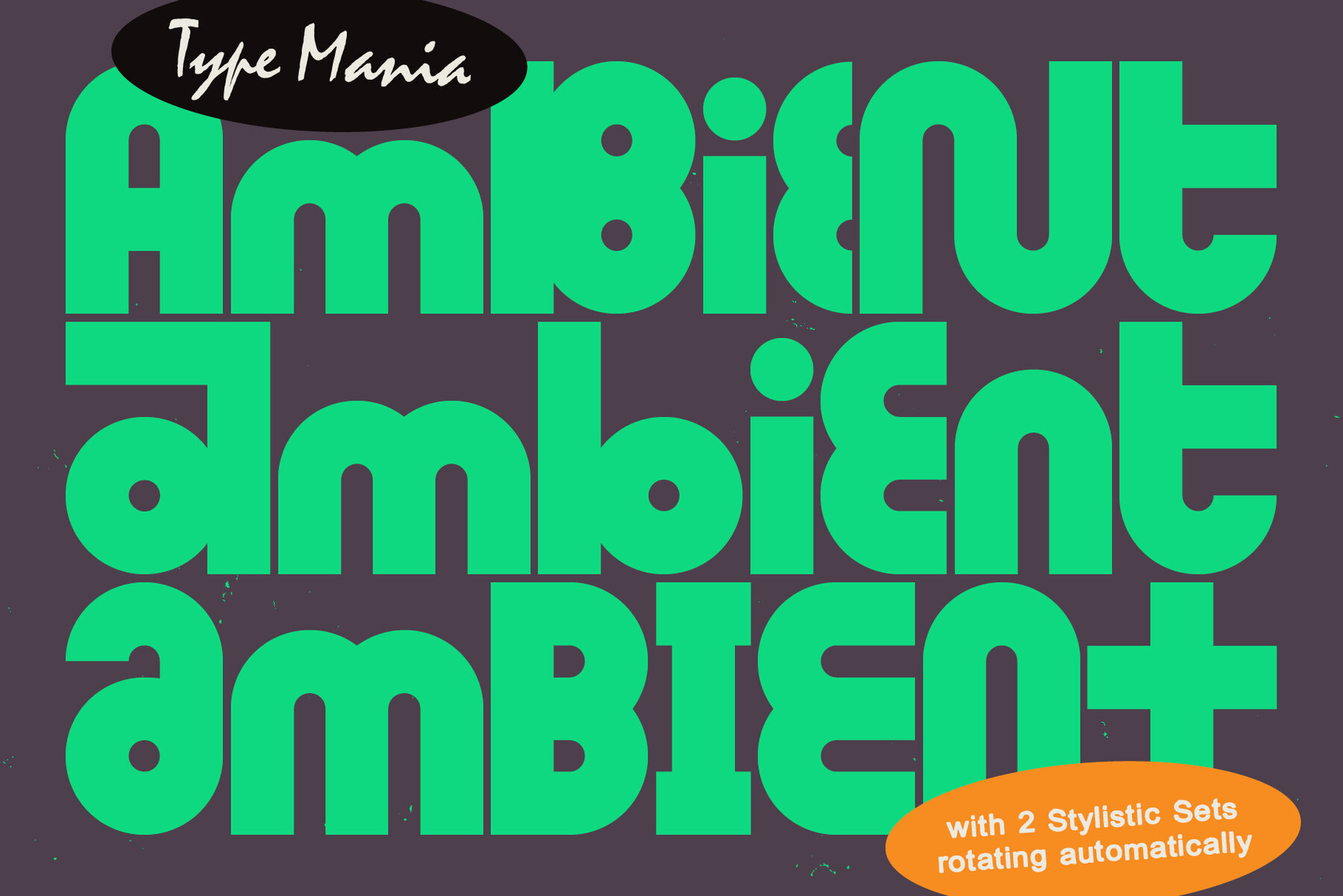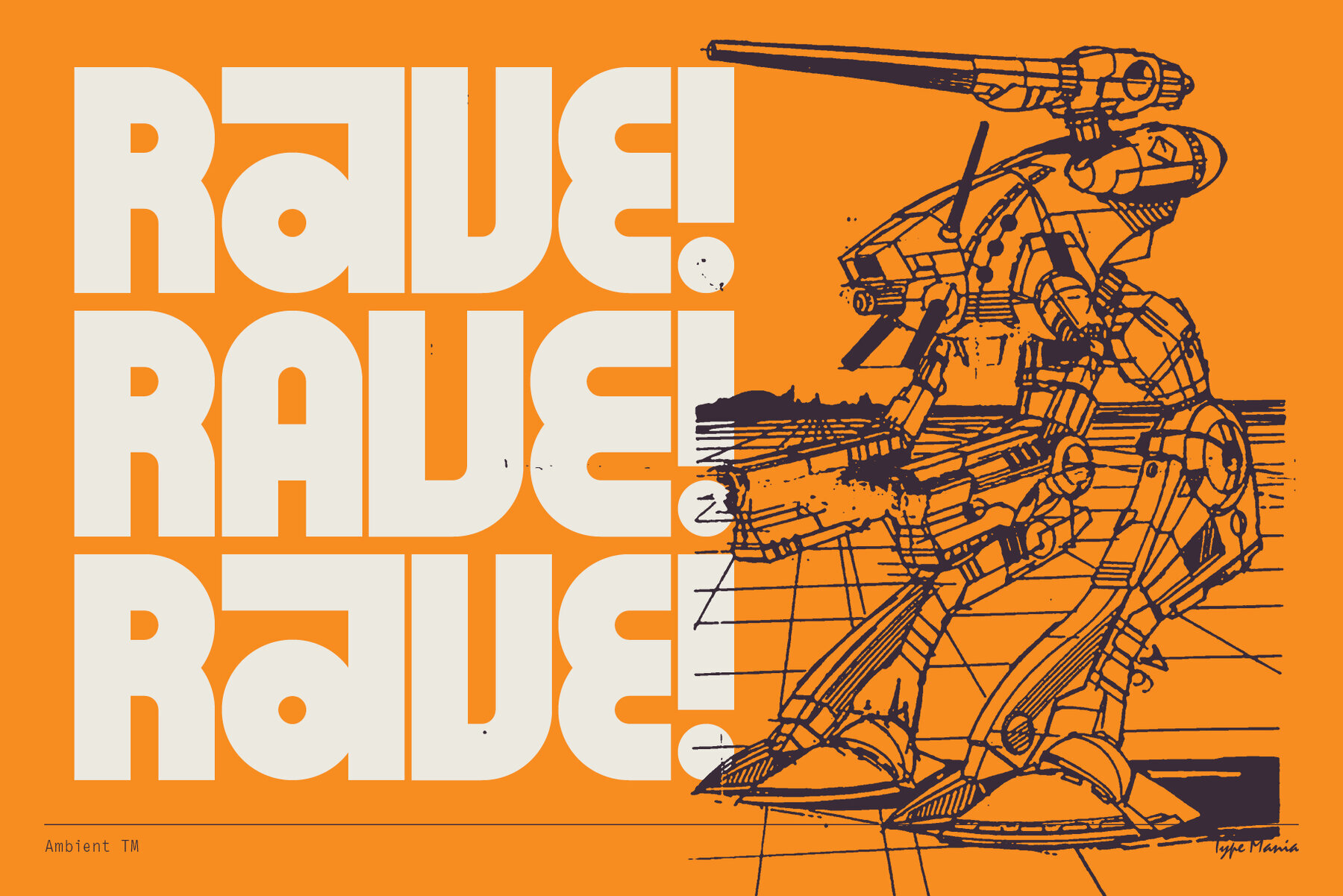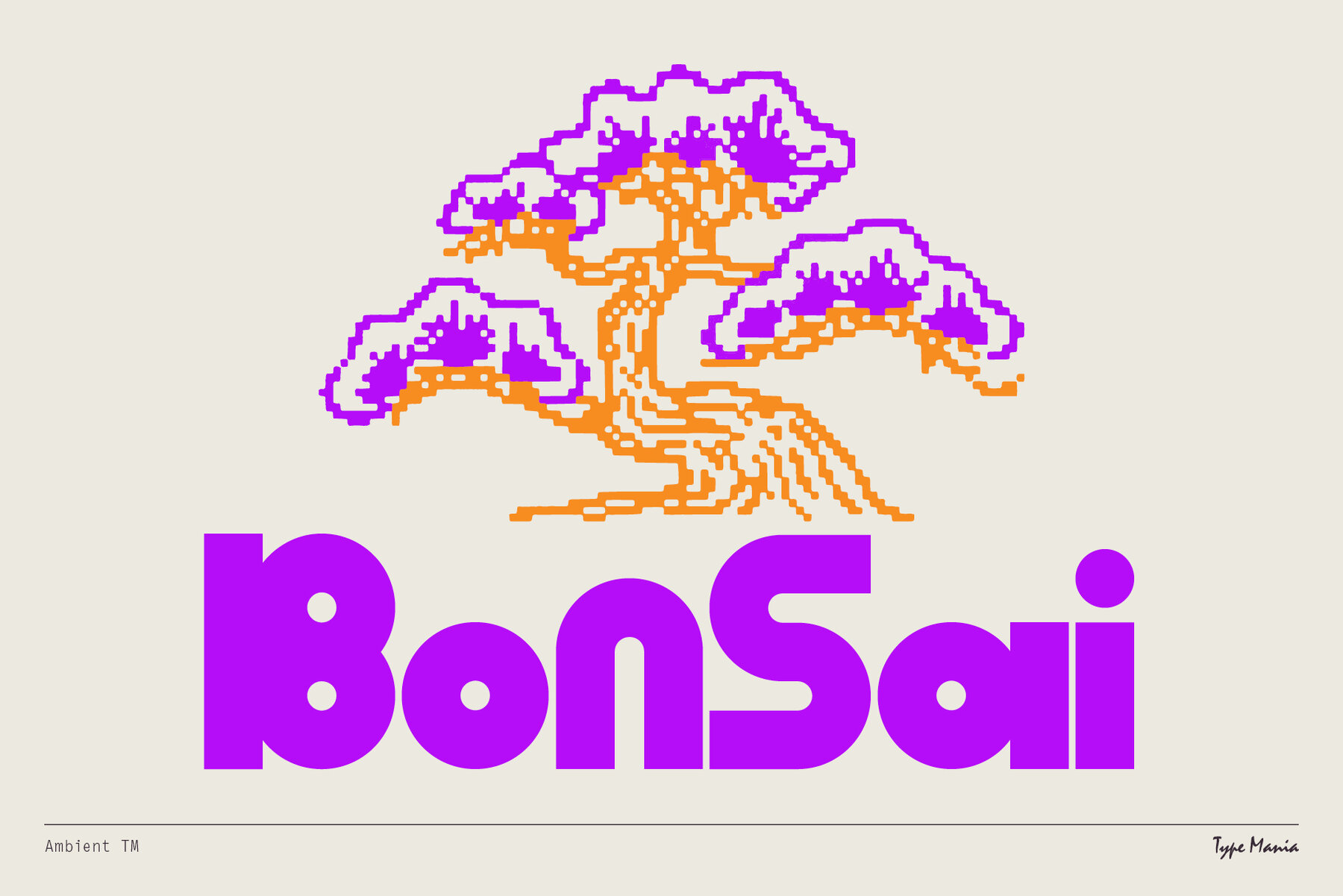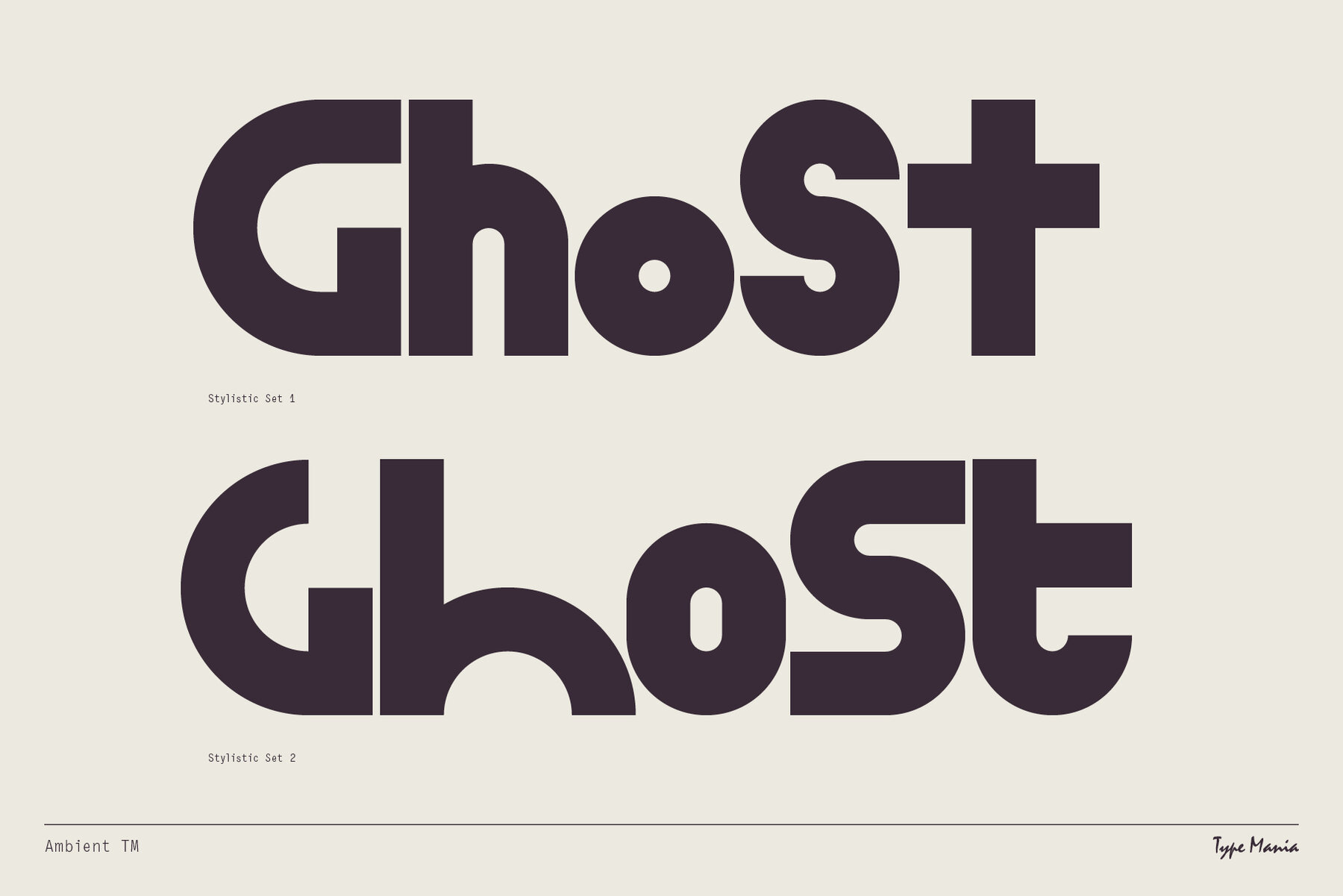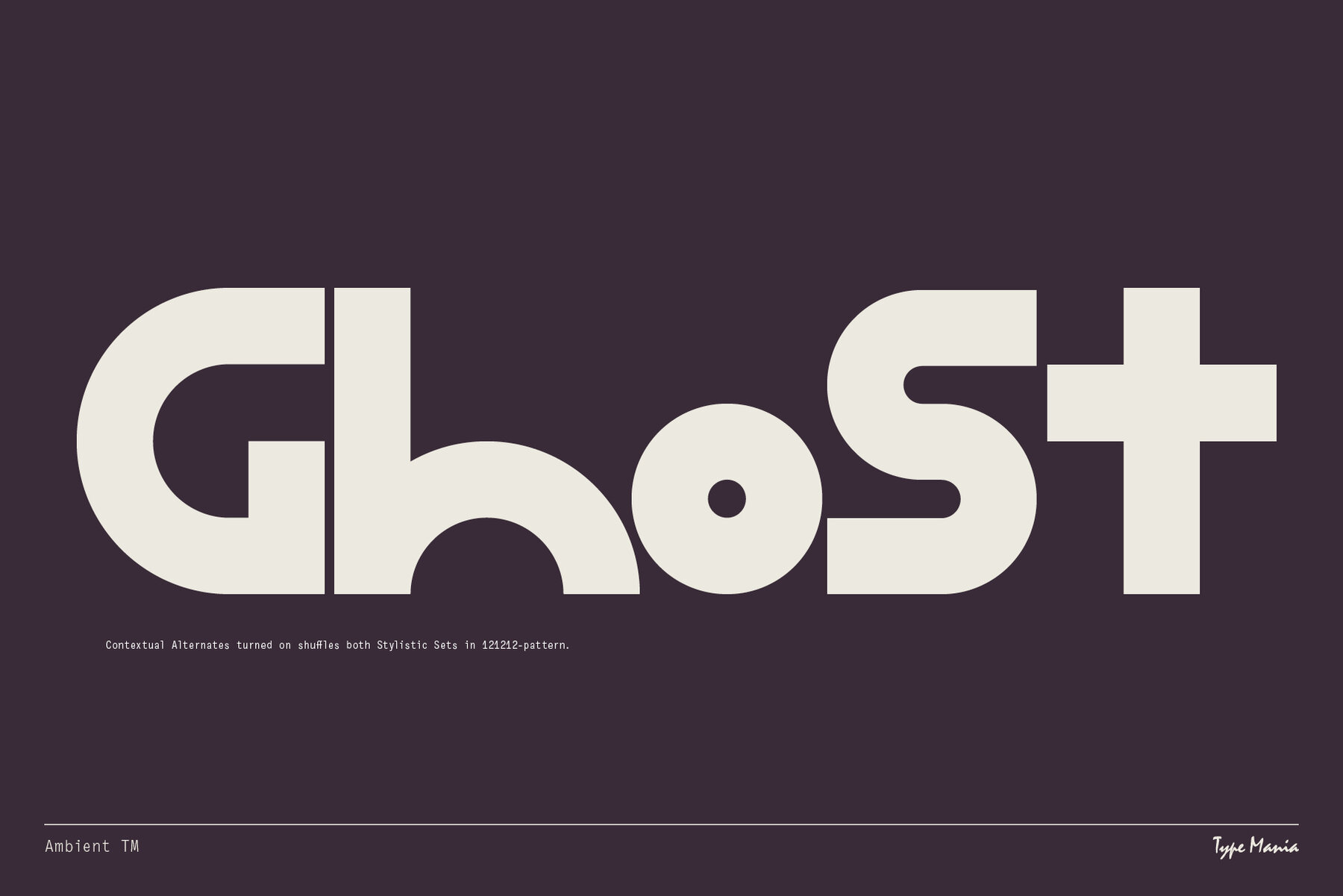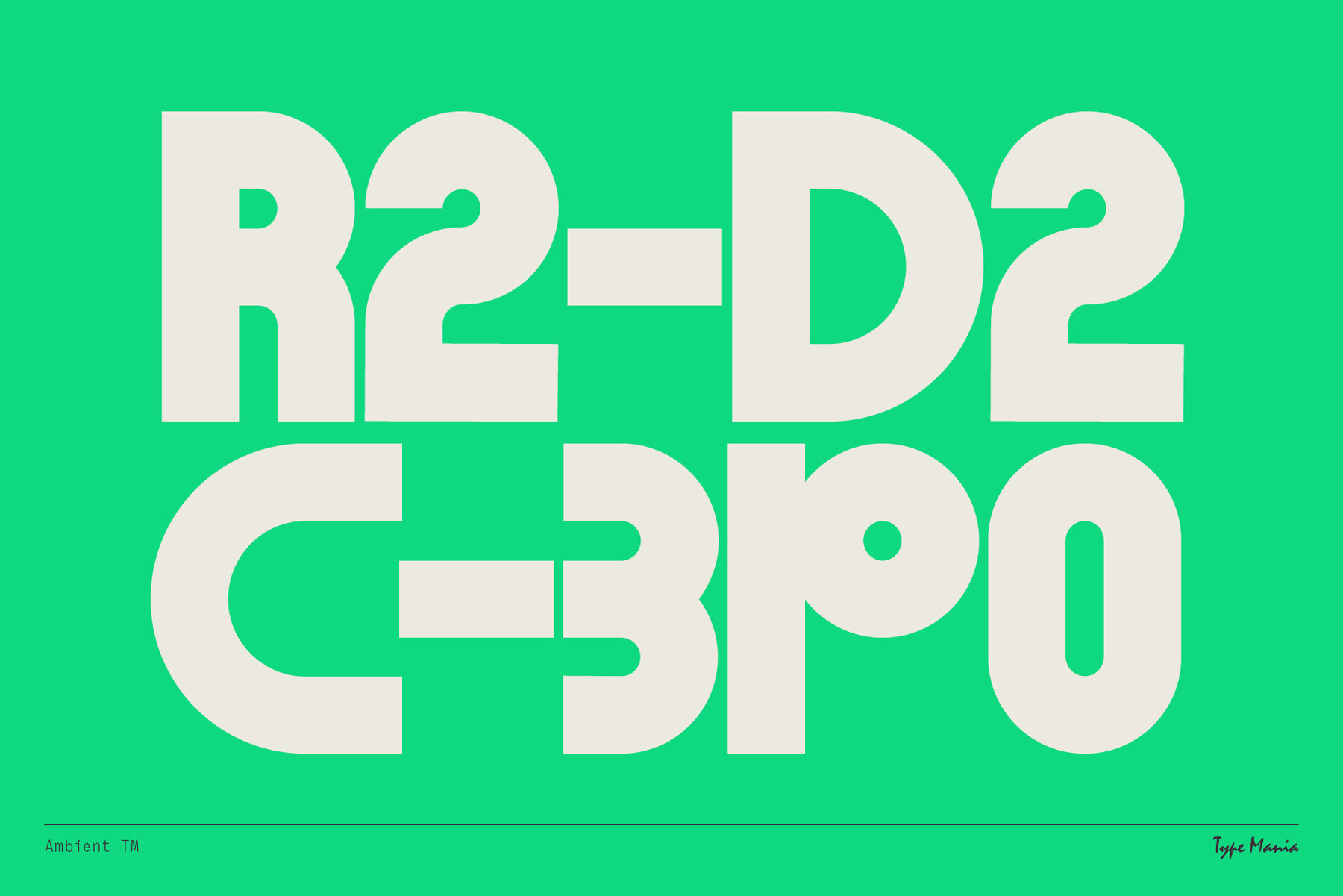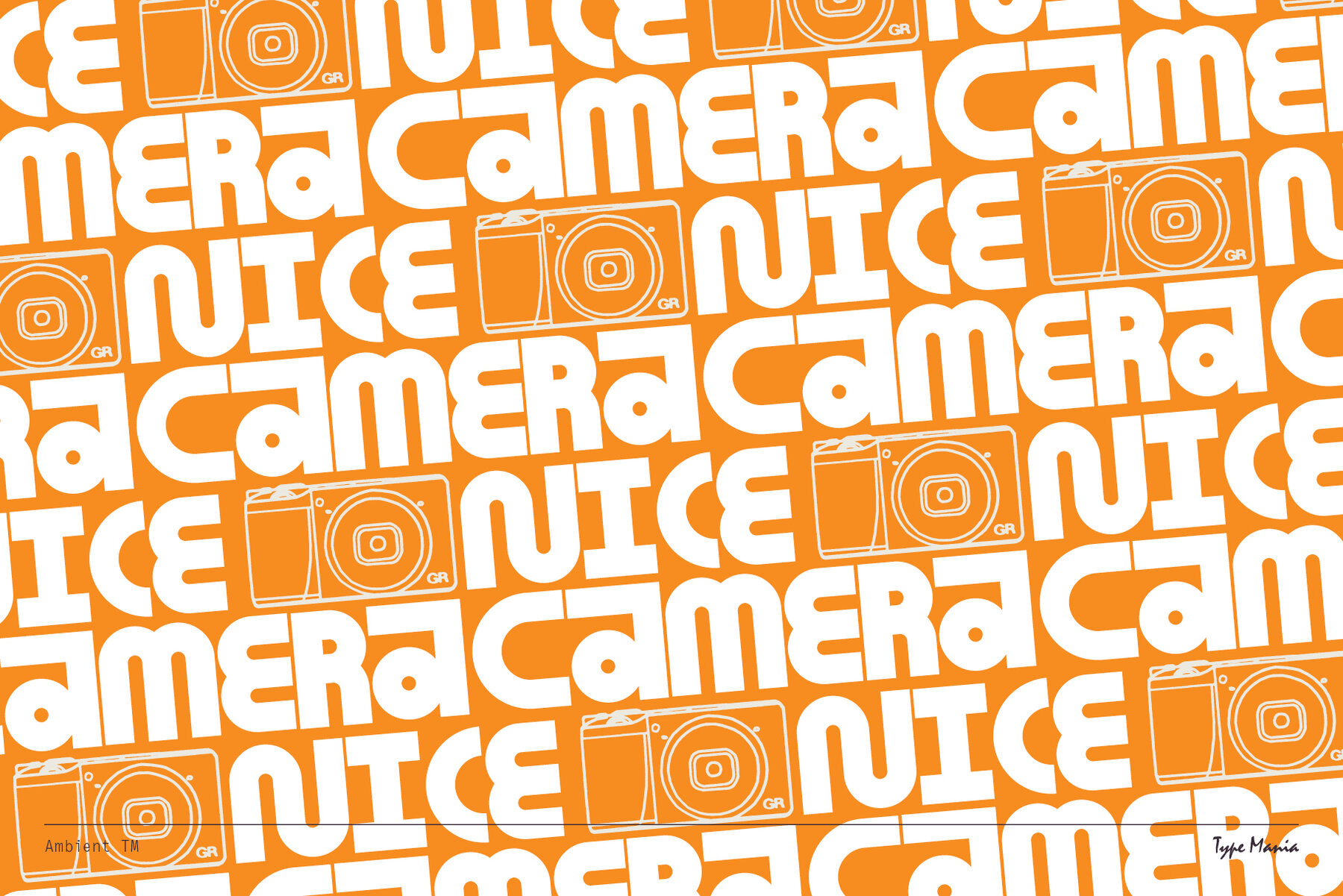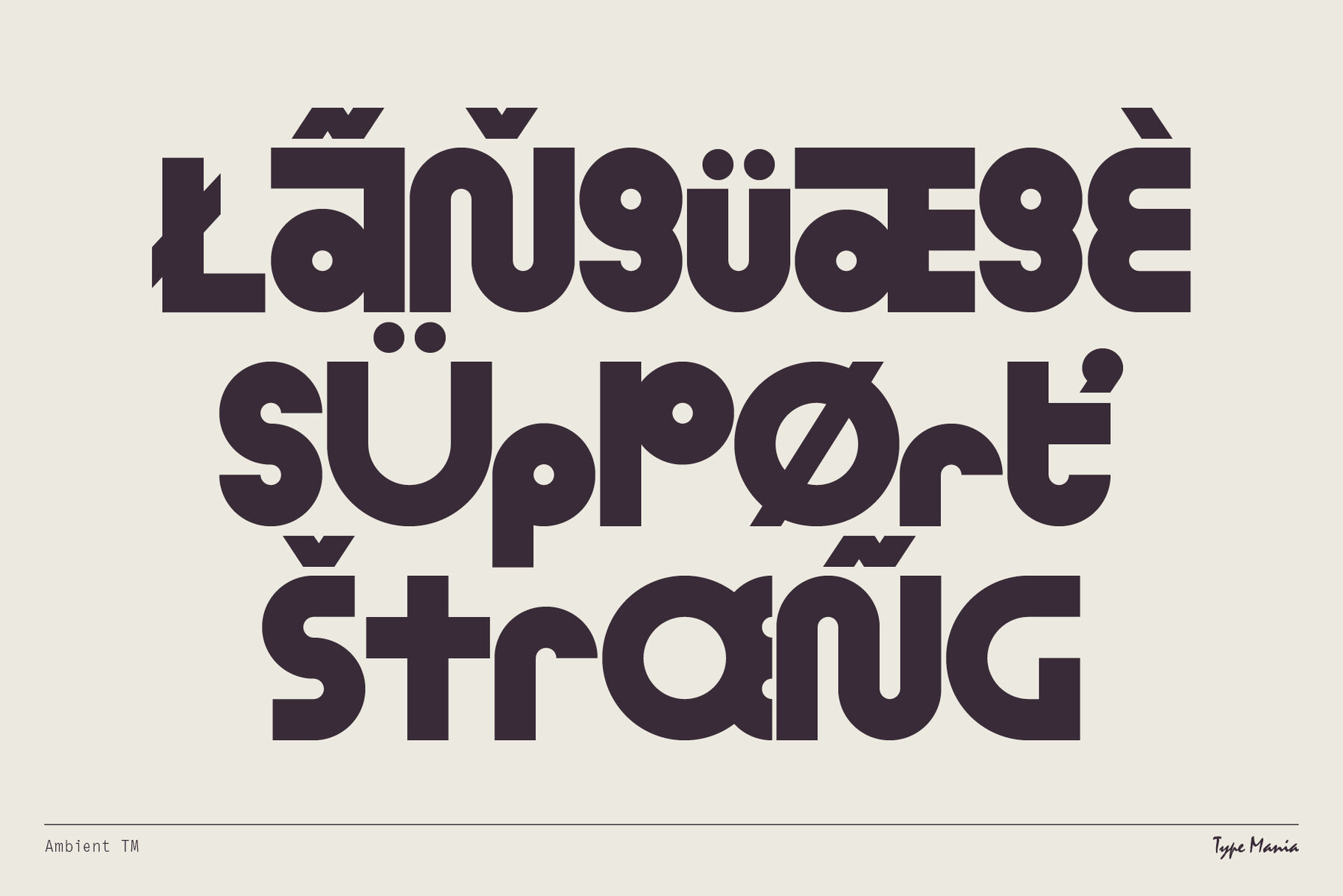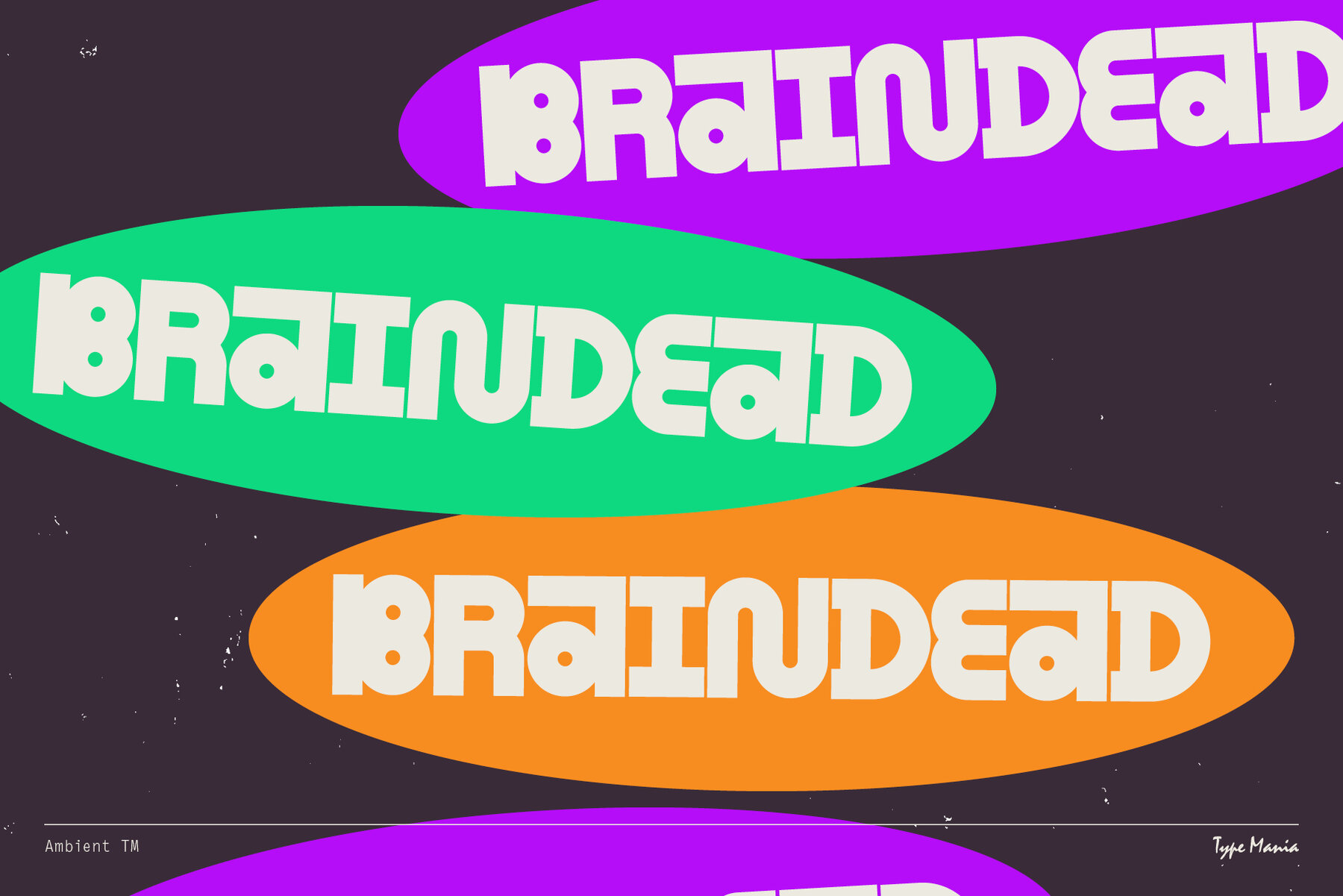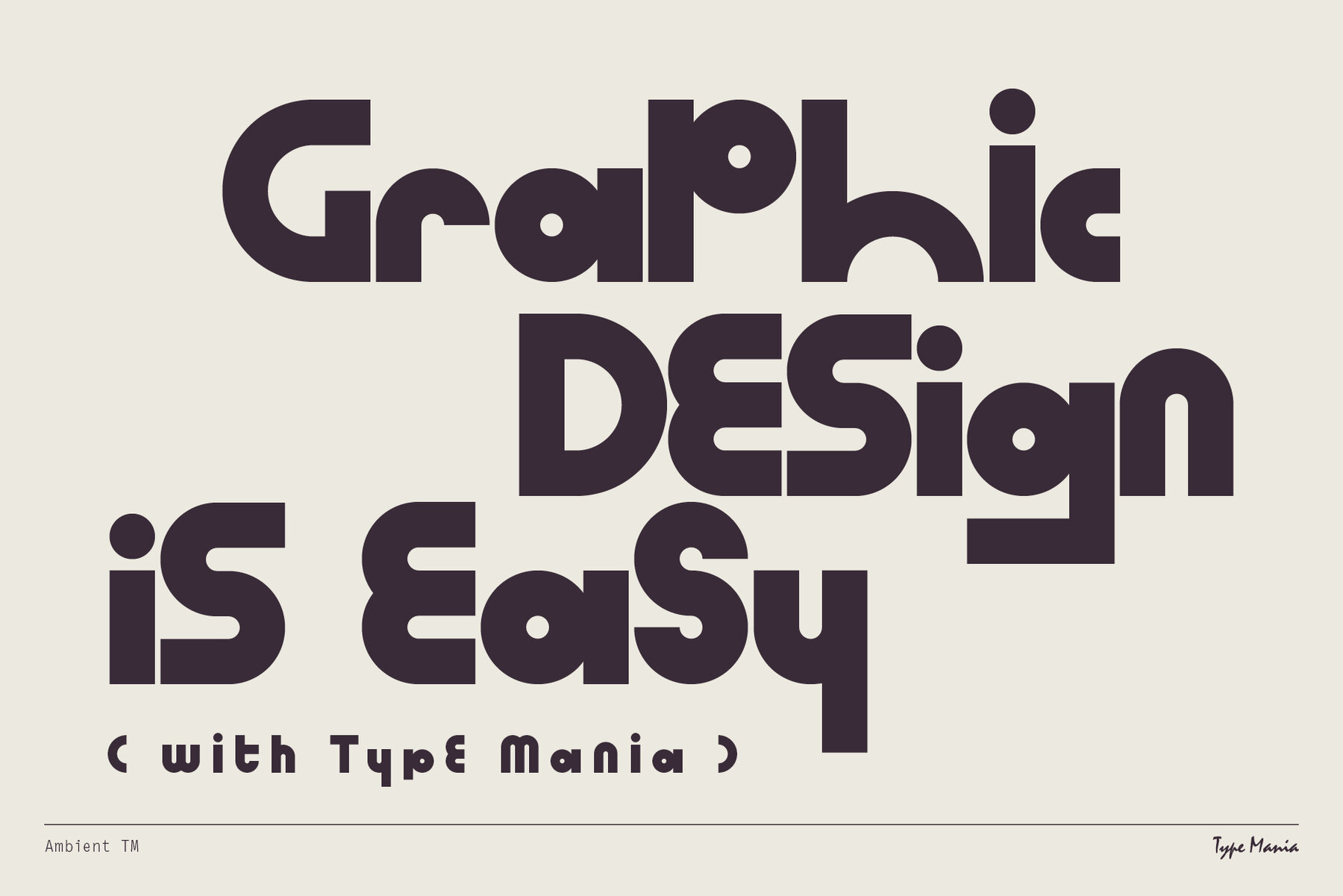
Ambient TM Font
Ambient TM Regular
Ambient TM infuses rigidity with movement through its clever design. It employs two stylistic sets that automatically rotate as you type, seamlessly shifting circles and squares into new, engaging alignments.Ambient TM: Dynamic Geometry in Typography